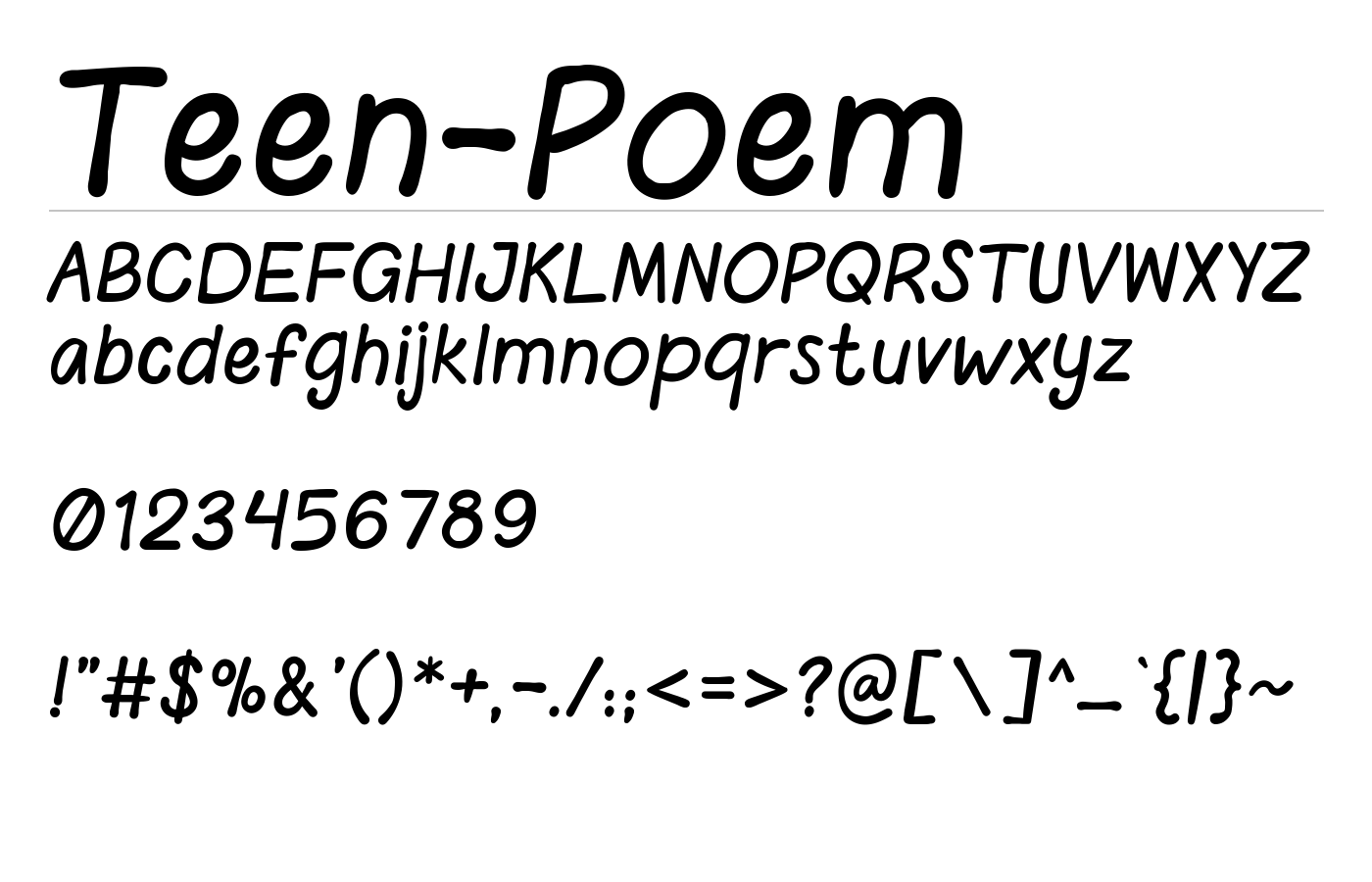
Teen Poem is a casual, handwritten sans serif font with a light weight and slightly condensed, playful letterforms. It features smooth, rounded strokes with a friendly, informal feel, making it perfect for youthful and creative designs. This font works well for headlines, invitations, and branding that seeks a personal, approachable touch.
Teen Poem Font
About Teen Poem Font
| Font family | Teen Poem Font |